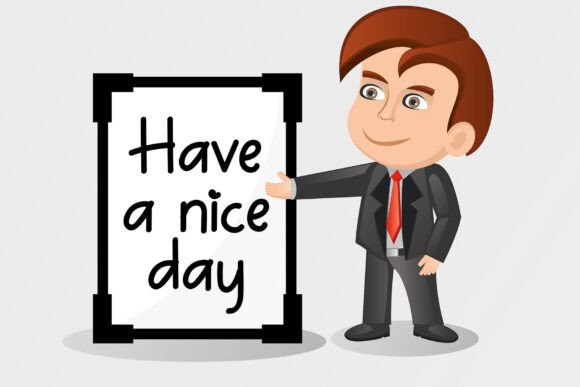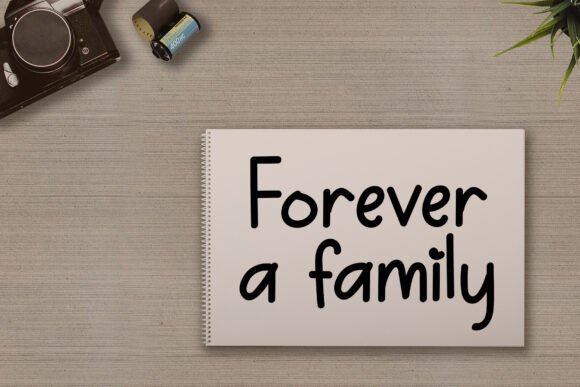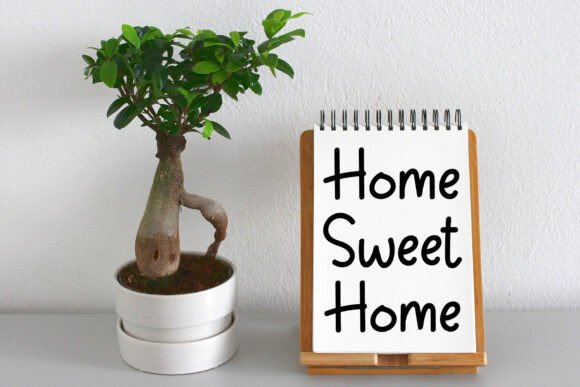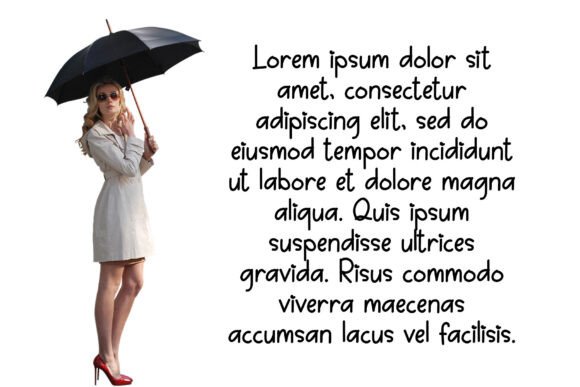
Introduction to Knitter Font
As you sit at your desk, surrounded by scraps of paper, pencils, and half-finished projects, the spark of creativity strikes. You envision a beautiful, elegant design that captures the essence of your idea. But, what font will you choose to bring it to life? That’s where the Knitter Font comes in – a unique and sophisticated design resource that’s perfect for your next creative project.
With its professional hand touch and high-quality aesthetic, the Knitter Font is an invaluable tool for designers. Whether you’re working on a school assignment, a work project, or a special event like a wedding or birthday, this font is sure to elevate your design and leave a lasting impression. And the best part? It’s accessible with all glyphs and can be used with a transparent background, making it a versatile choice for any creative endeavor.
- High-quality, professional design for creative projects, making it an excellent design resource.
- Designed to be versatile, the Knitter Font is perfect for use in various creative projects, including knitting patterns, craft designs, and more.
Honest Review: Knitter Font
I recently stumbled upon the Knitter Font and was excited to give it a try for my creative project. As a designer, I’m always on the lookout for high-quality design resources that can elevate my work. The Knitter Font definitely delivers on this front.
- ✨ Beautiful, intricate design that adds a touch of elegance to any text.
- ✨ Comes with a transparent background, making it easy to place over any image or background.
- ✨ Perfect for crafting a unique and personalized look for your design projects.
- ⚠️ The font is not suitable for large blocks of text, as it can become overwhelming.
- ⚠️ Some users may find the font’s complexity difficult to read at small sizes.
The Knitter Font is perfect for a variety of creative projects, including:
- Posters and advertisements